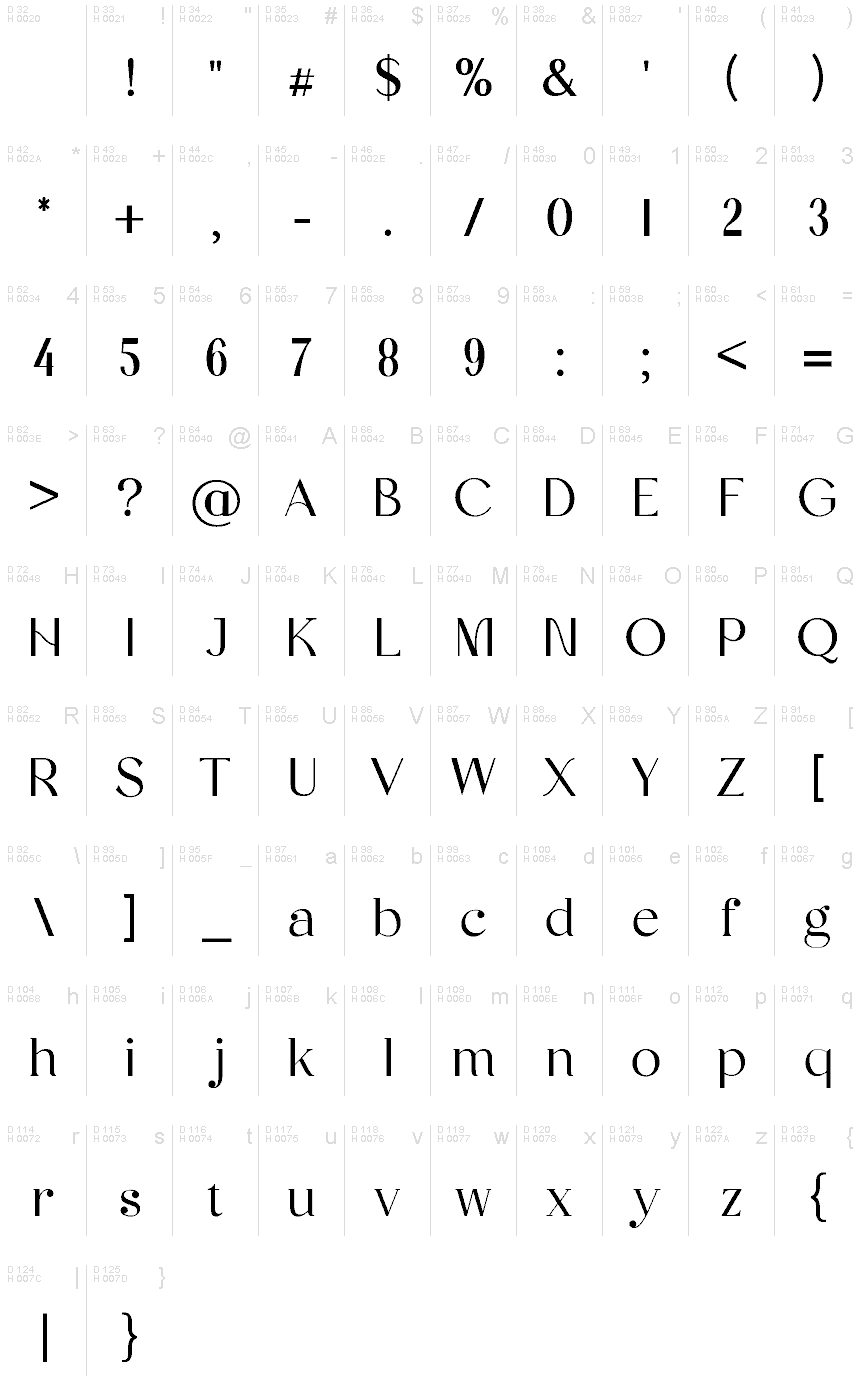
ChiaBianville
Chia Bianville font by UI Creative is an elegant serif typeface characterized by its sophisticated and modern expression. Its refined character combines subtle curves and timeless appeal to create an exceptionally beautiful presence in headlines, posters, or logos.